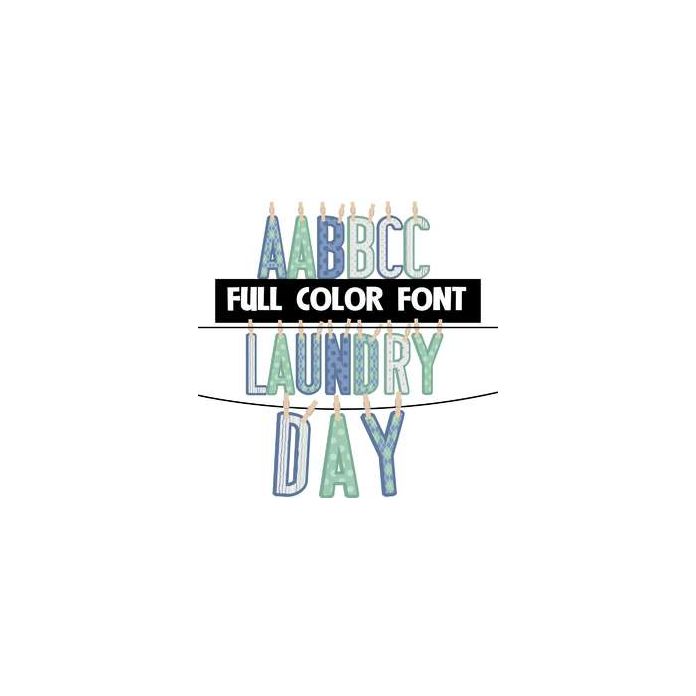
This full-color font features patterns letters hanging from clothespins. The laundry line is not included! This font works best for titles, displays, posters and more. Please note color fonts will show as black in non compatible programs. This font type is compatible with Silhouette Studio.